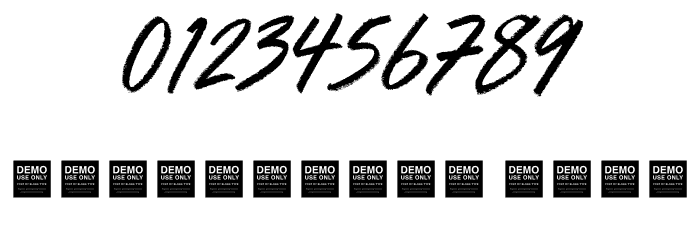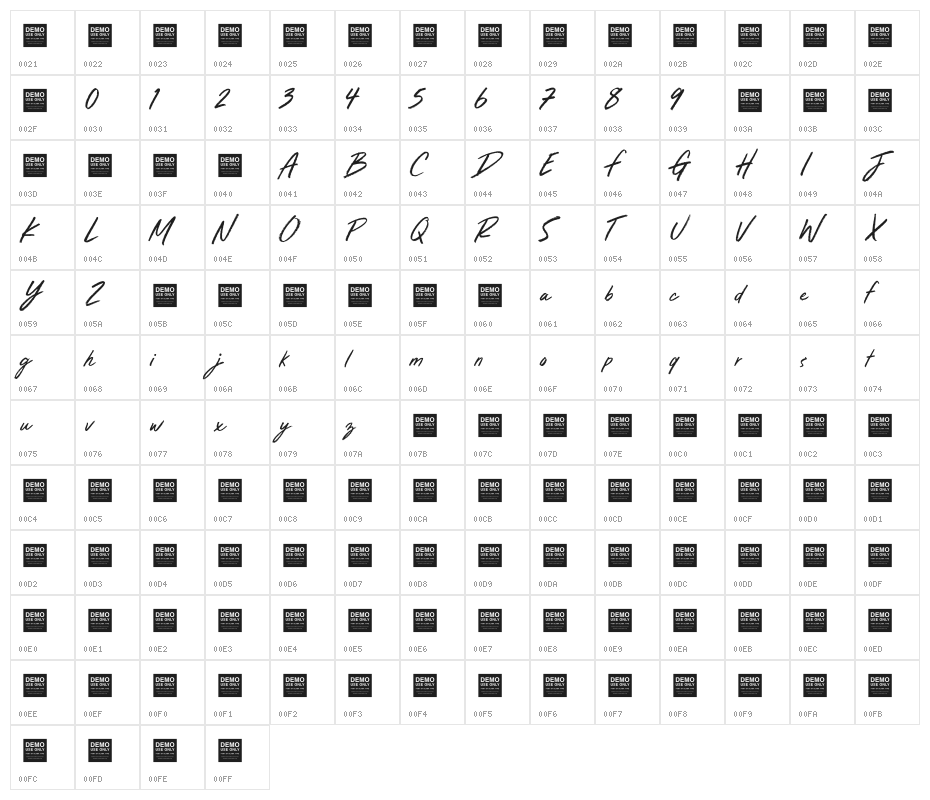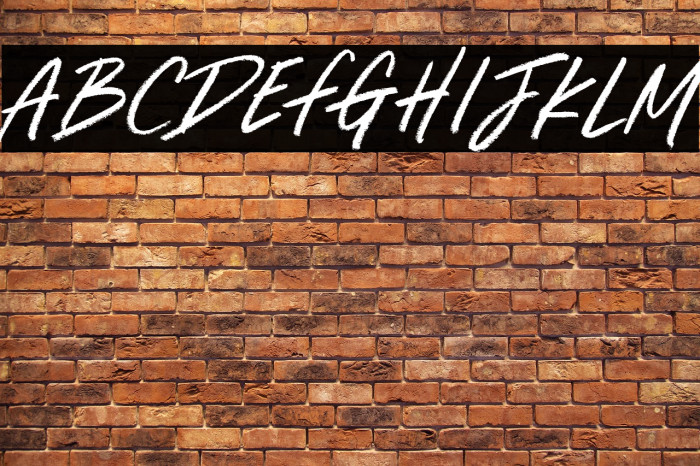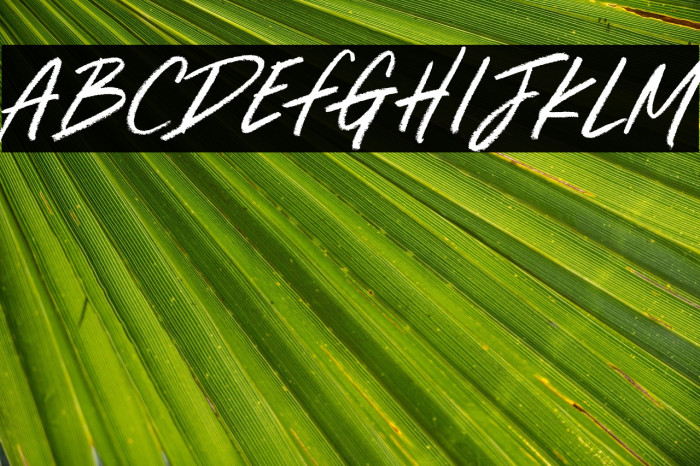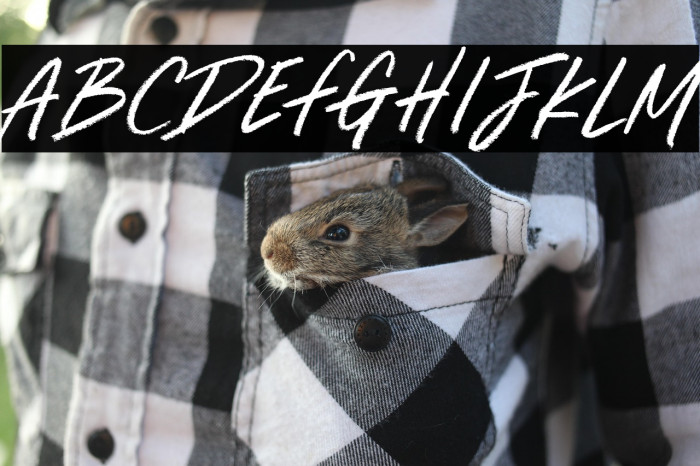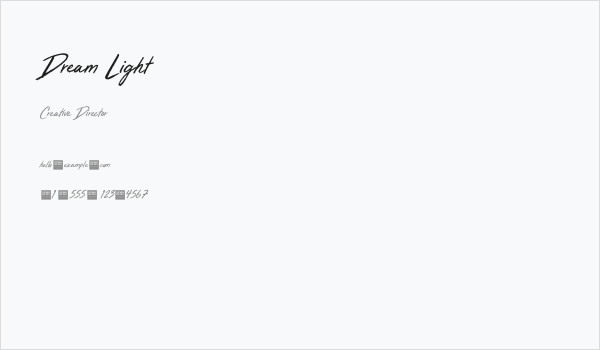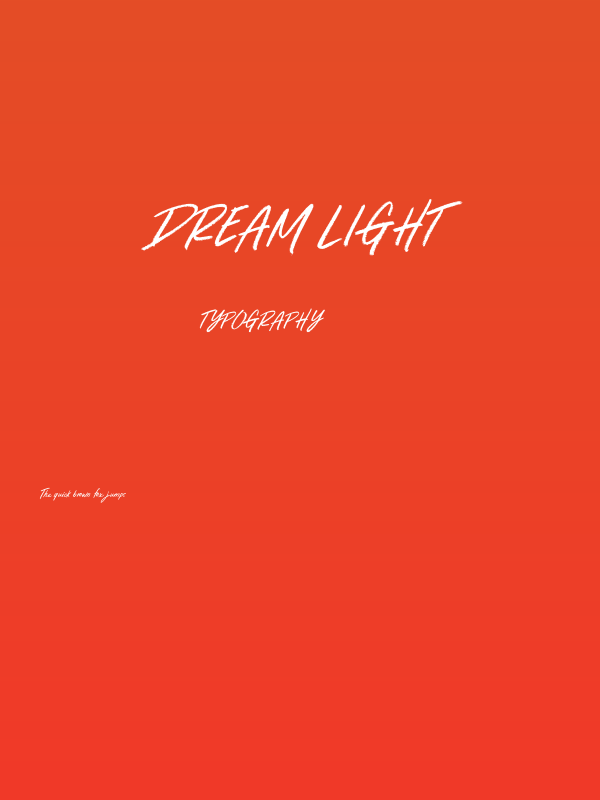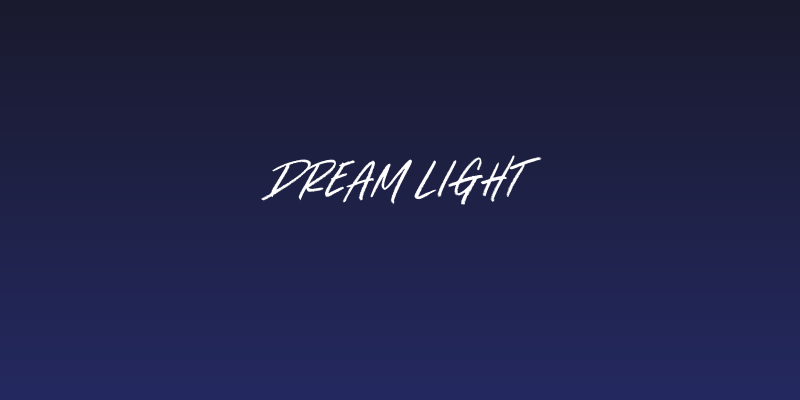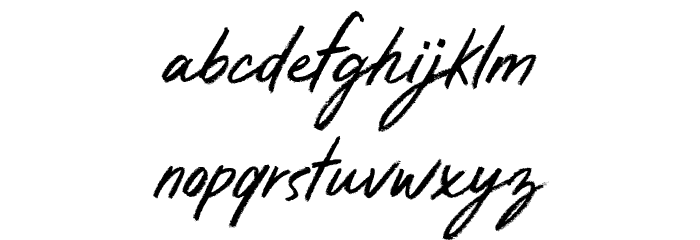
Dream Light Font
Dream Light Description
This font exudes a dynamic and energetic feel with its handwritten style, characterized by fluid and slightly slanted strokes. The letters are connected in a way that mimics natural handwriting, providing a personal and informal touch. The uppercase letters are bold and prominent, while the lowercase letters maintain a consistent flow, enhancing readability. The numerals are well-integrated, matching the overall style with their smooth curves. This font is versatile, suitable for projects that require a personal or creative flair.